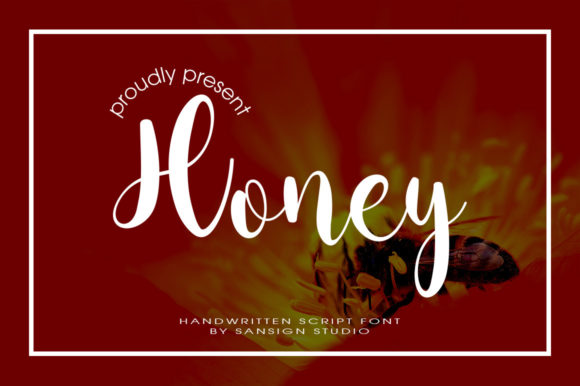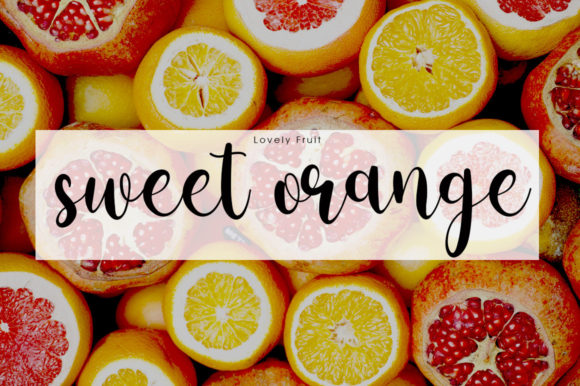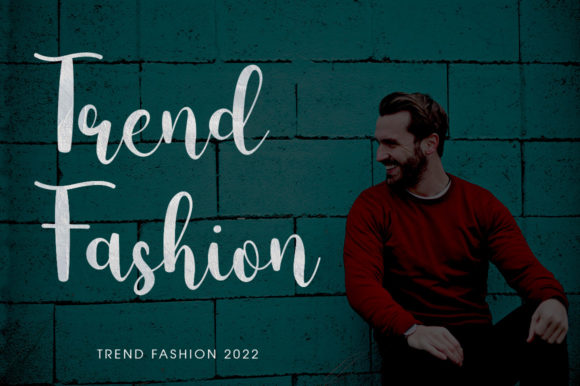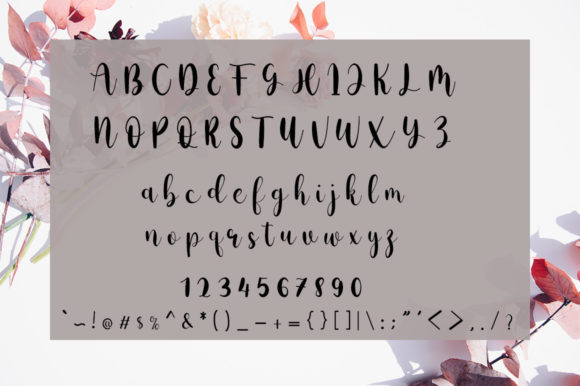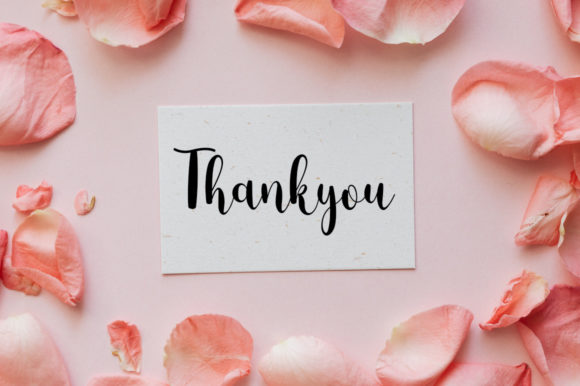
About Honey Font
Honey is a well-designed script font. It prioritizes high quality so that it can be used by customers to meet needs such as writing on packaged products, invitation cards, t-shirts, labels and others.